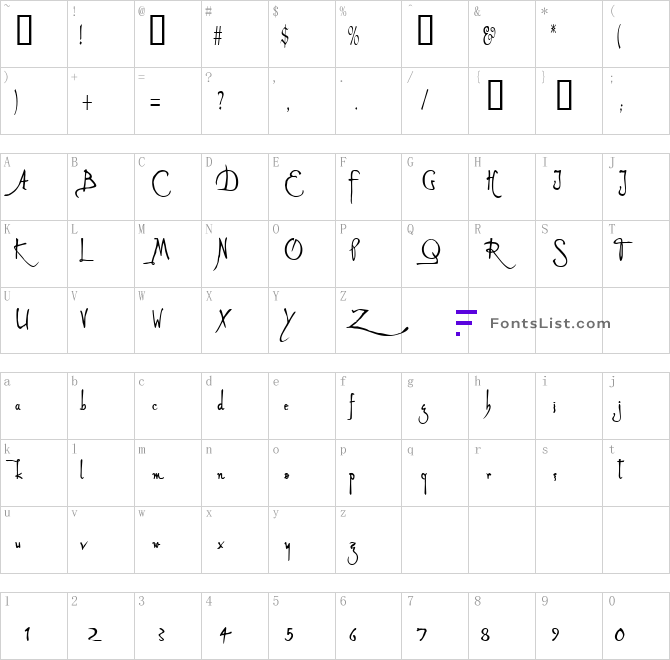
- Font Name:Alleghieri
Alleghieri.ttf is a very beautiful artistic font, Alleghieri.ttf is widely used in the design and printing of various books and pictures,Alleghieri.ttf has a strong visual impact,Alleghieri.ttf is a commonly used font in newspapers, magazines and books, and is used in posters, e-commerce Poster design, store design, logo design, font design and other fields.Alleghieri.